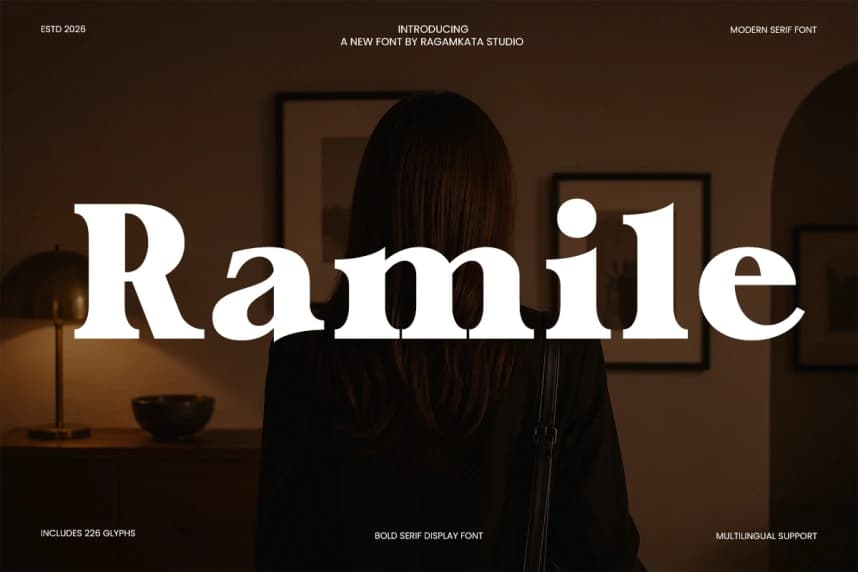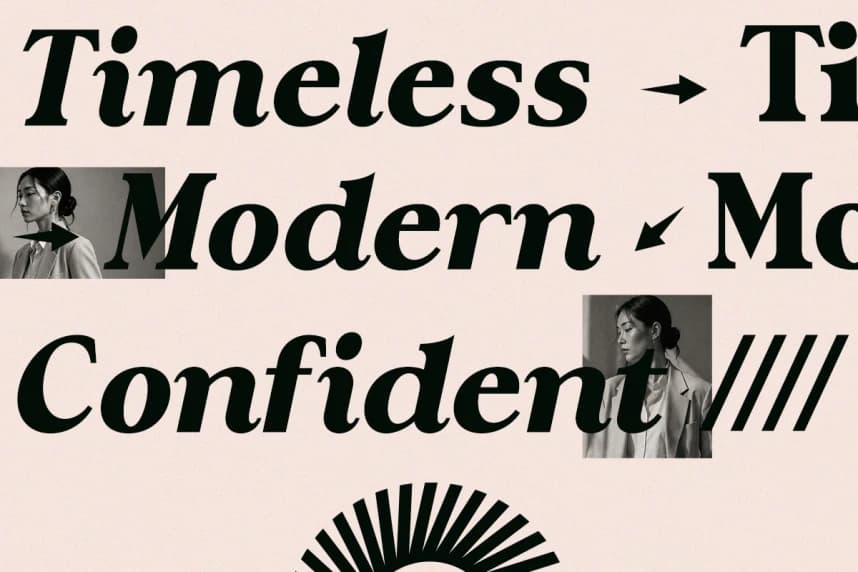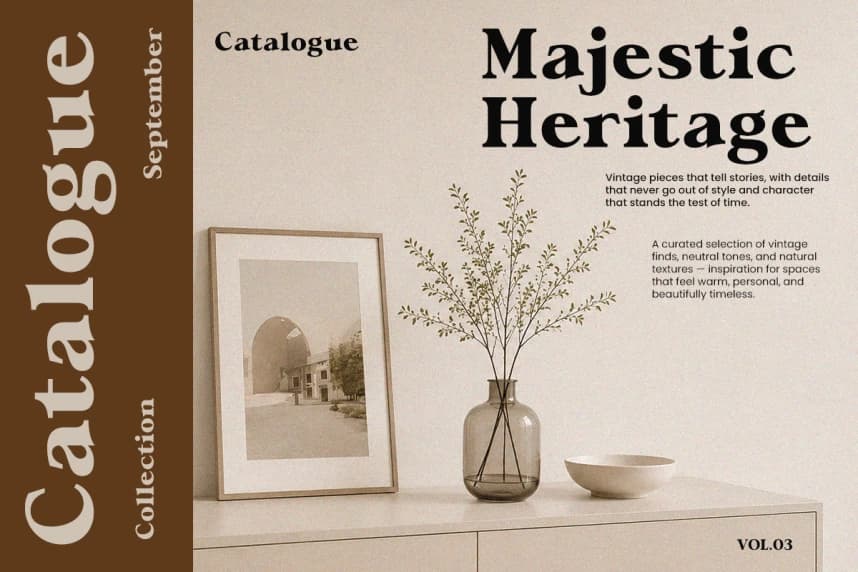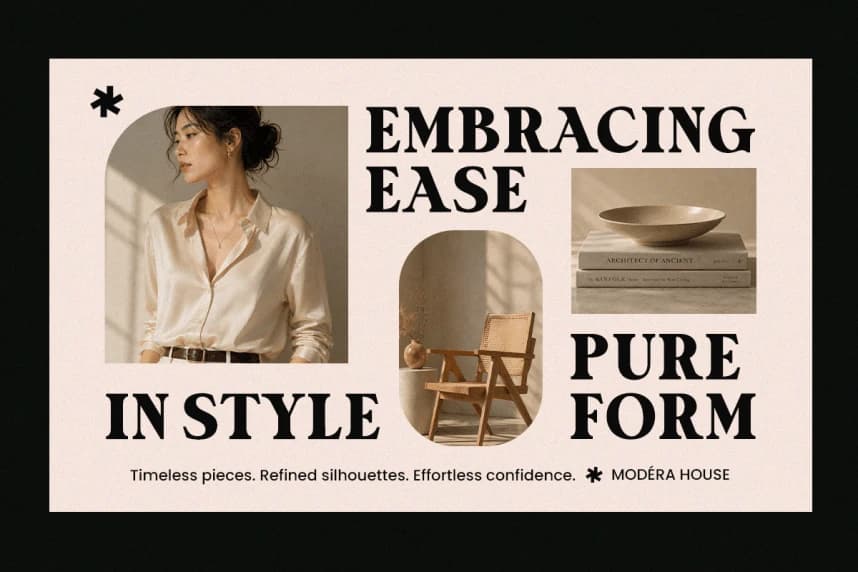
Ramile Font
Ramile Font, a bold modern serif display font crafted to deliver elegance, confidence, and timeless sophistication. Designed with strong contrast, refined proportions, and luxurious serif details, this typeface creates an instantly premium visual presence.